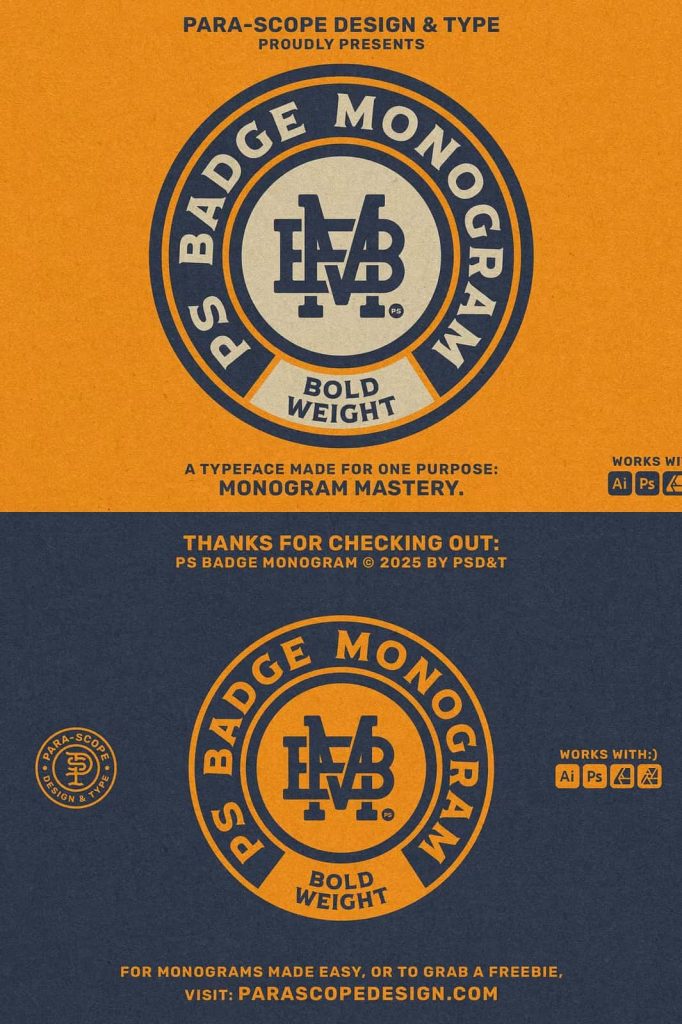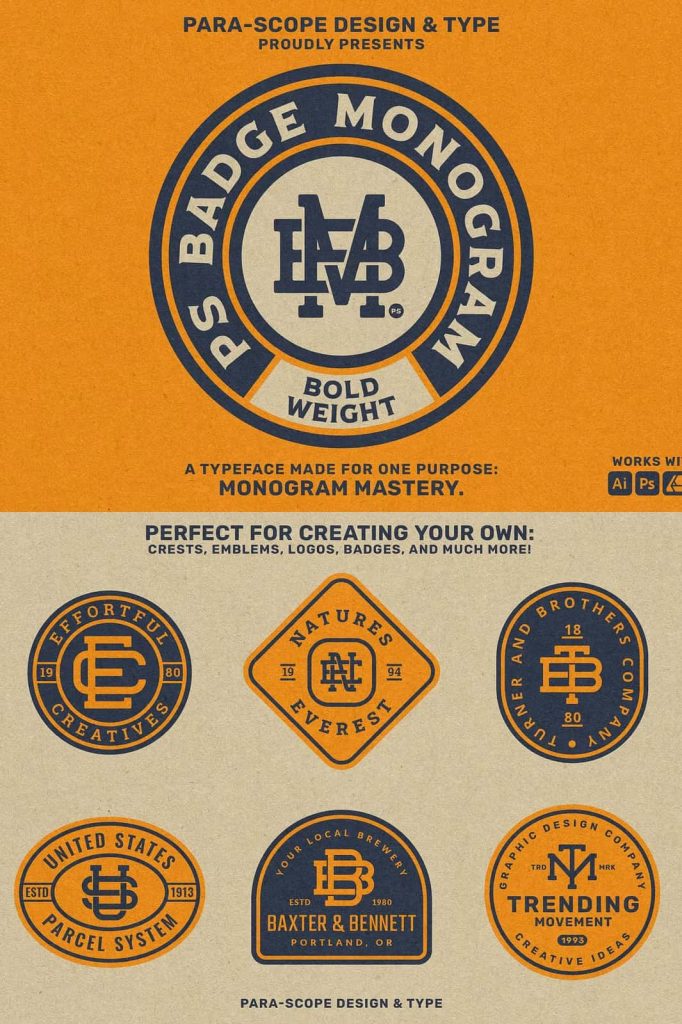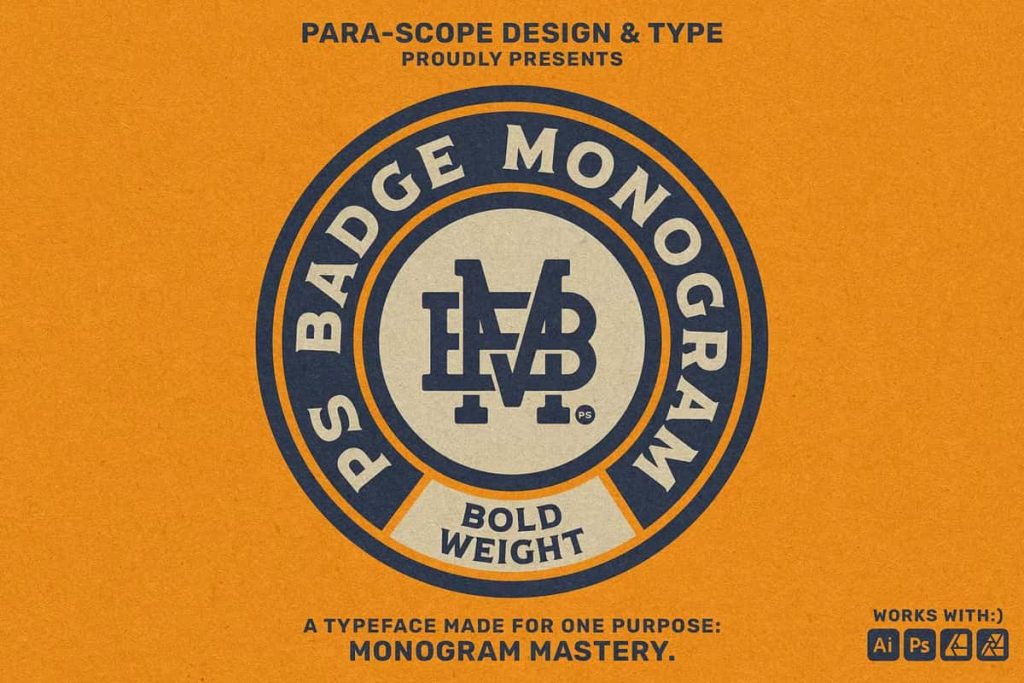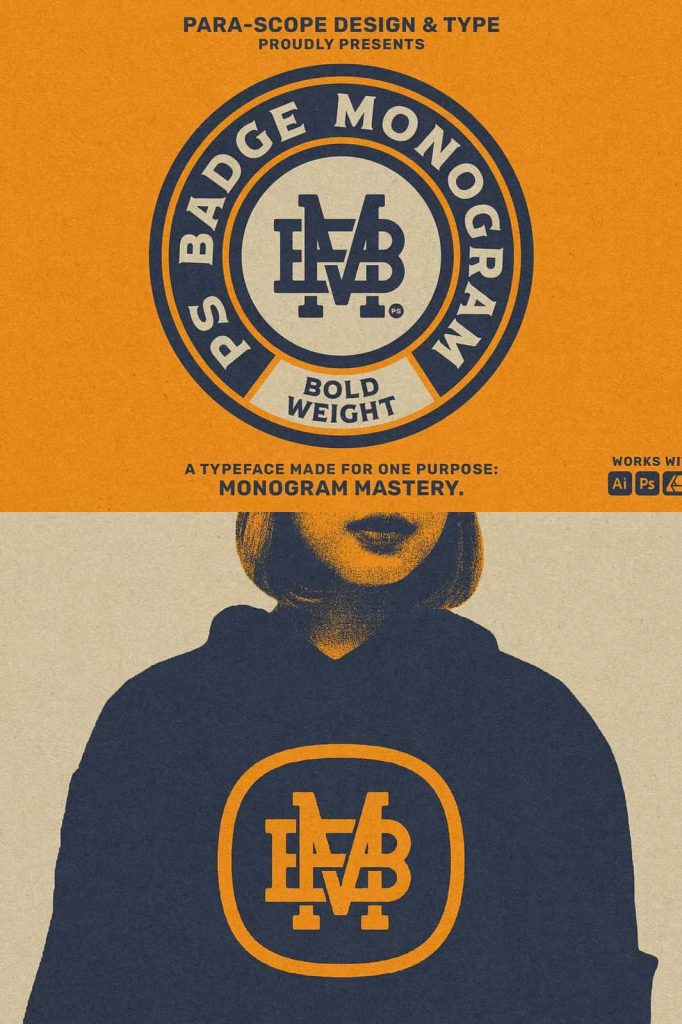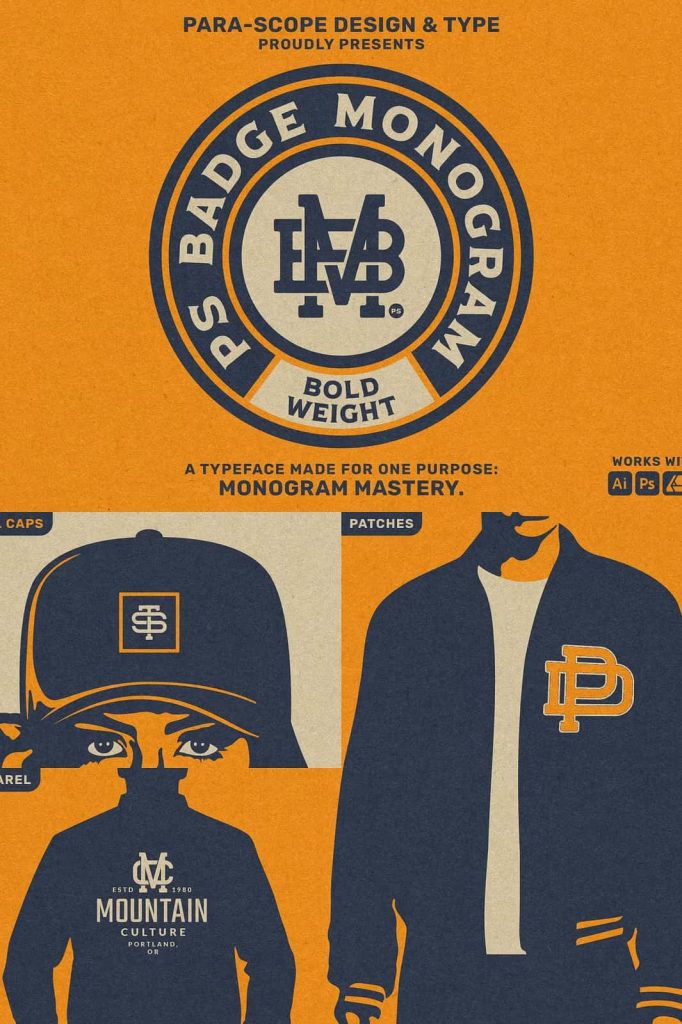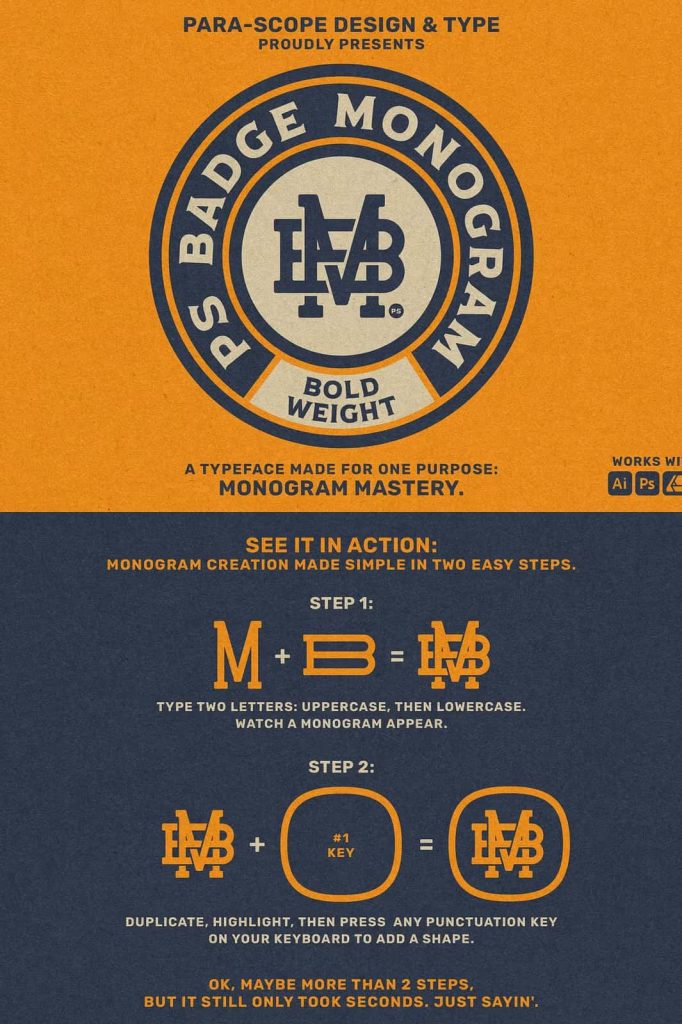
PS Badge Monogram Font
PS Badge Monogram is a powerful monogram font created to simplify and accelerate the design process. Designers often spend hours building badge logos, crafting monograms, and experimenting with layouts to achieve the perfect look. This typeface helps reduce that effort by offering a ready-to-use system that allows you to create professional badge-style designs quickly and efficiently.
With PS Badge Monogram, you can easily construct custom monograms, vintage badges, and logo marks without starting from scratch. The font provides a flexible structure that allows designers to build clean, bold, and visually appealing typography compositions. Whether you are working on branding projects, merchandise designs, or personal creative work, this typeface delivers the tools you need to produce strong visual identities.
Instead of relying on complex vector construction or detailed logo illustration, designers can use PS Badge Monogram to quickly generate professional badge-style lettering that looks polished and cohesive.
A Monogram Font Designed for Efficient Logo Creation
PS Badge Monogram focuses on efficiency and creative freedom. The typeface allows designers to quickly create badge logos that feel structured, balanced, and visually striking. Each character was designed to work naturally within monogram and emblem compositions, making it easier to arrange letters into symmetrical badge layouts.
Many logo designers regularly create monograms for brands, personal projects, and client identities. PS Badge Monogram streamlines this process by providing characters that naturally fit into badge structures. This design approach allows you to experiment with different letter combinations and build strong logo marks in minutes rather than hours.
The bold and structured style of the letters also helps maintain clarity and readability, which is essential for branding projects. Whether used in large logo displays or smaller merchandise applications, the typeface maintains its strong visual presence.
Perfect for Branding and Client Logo Projects
Brand identity design often requires logos that feel timeless, professional, and distinctive. PS Badge Monogram supports this goal by offering typography that works well in emblem-style logos and monogram marks. Designers can easily adapt the letters to create custom brand identities that communicate strength and credibility.
For freelance designers and creative studios, this typeface can significantly speed up the logo creation workflow. Instead of constructing every badge element manually, you can begin with a strong typographic foundation and focus more on creative direction, layout, and brand storytelling.
The typeface works especially well for businesses that prefer vintage-inspired or badge-style branding. Craft breweries, barbershops, clothing brands, outdoor companies, and lifestyle brands often use badge logos to communicate authenticity and tradition.
Create Unique Merchandise and Apparel Designs
PS Badge Monogram also works beautifully for merchandise and apparel design. Designers frequently create badge graphics for t-shirts, hats, patches, stickers, and other promotional products. The structured lettering style helps designs remain clear and visually impactful across many printing methods.
Merchandise designs often require strong typography that can stand alone as the central graphic element. PS Badge Monogram delivers that strength by providing bold letterforms that work well in both minimal and detailed compositions. Designers can easily combine the font with shapes, icons, or decorative elements to create complete badge-style graphics.
The versatility of the typeface allows it to adapt to many creative directions. Whether you aim for a rugged vintage look or a modern badge-style brand, the font provides a flexible starting point for experimentation.
Build Custom Monograms for Personal and Creative Projects
Monograms remain popular in both professional and personal design work. From wedding stationery and event branding to personal logos and creative portfolios, monograms help designers create elegant and recognizable identity marks.
PS Badge Monogram gives designers the ability to construct custom monograms that feel balanced and visually appealing. The carefully designed characters allow letters to interact naturally, helping you build symmetrical or decorative monogram arrangements with ease.
This feature makes the font especially useful for designers who frequently work with initials and emblem-style graphics. Instead of drawing each monogram by hand, you can quickly assemble letter combinations and refine the final design.
A Versatile Typeface for Modern Designers
PS Badge Monogram was created with versatility in mind. The font adapts easily to a wide range of design applications, from branding and packaging to digital graphics and promotional materials. Designers can use it for logo headers, product labels, signage, or social media branding.
Pairing the font with clean sans-serif typefaces or classic serif fonts can help build balanced typography systems. In many layouts, PS Badge Monogram works best as a headline or centerpiece element while supporting fonts handle longer text sections.
This flexibility allows designers to integrate the typeface into both modern and vintage-inspired visual styles.
Streamline Your Creative Workflow
PS Badge Monogram empowers designers to work faster without sacrificing quality. The structured monogram characters provide a strong typographic foundation that simplifies the process of creating badge logos, merchandise graphics, and branding assets.
By using this font, designers can focus more on creativity and concept development rather than technical construction. Whether you design logos for clients, develop merchandise collections, or build personal branding projects, PS Badge Monogram helps transform ideas into polished visual designs with speed and confidence.